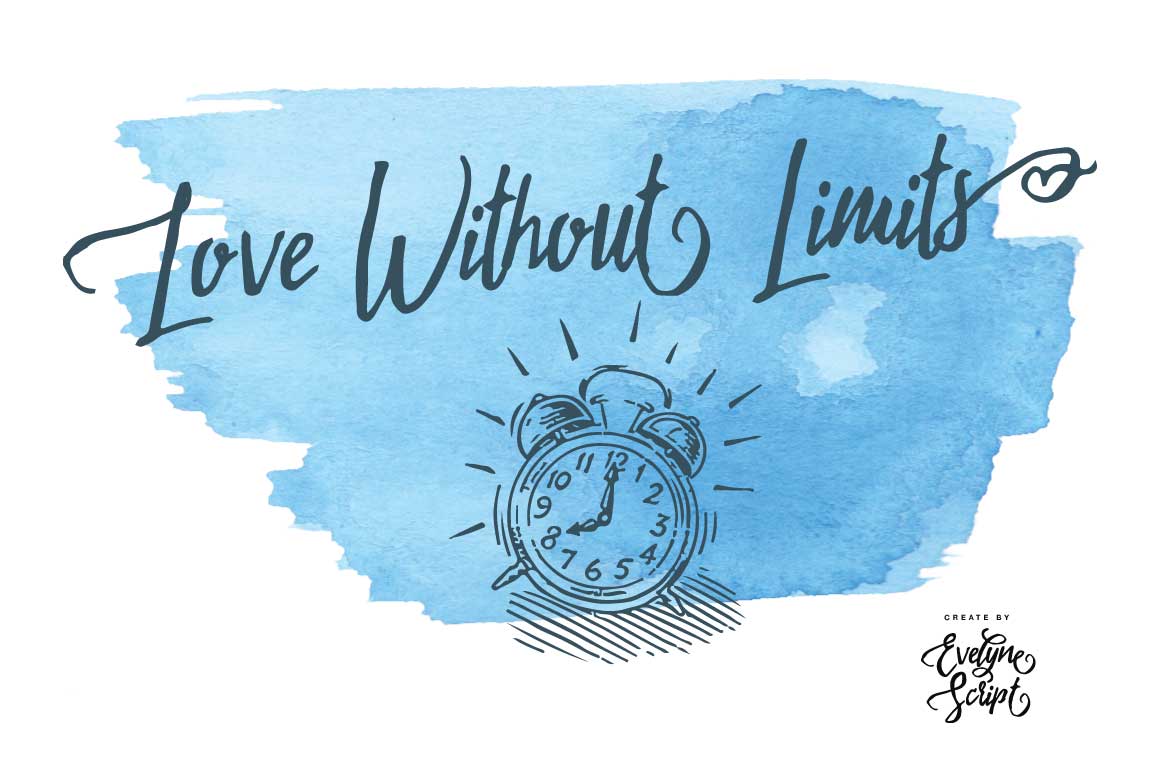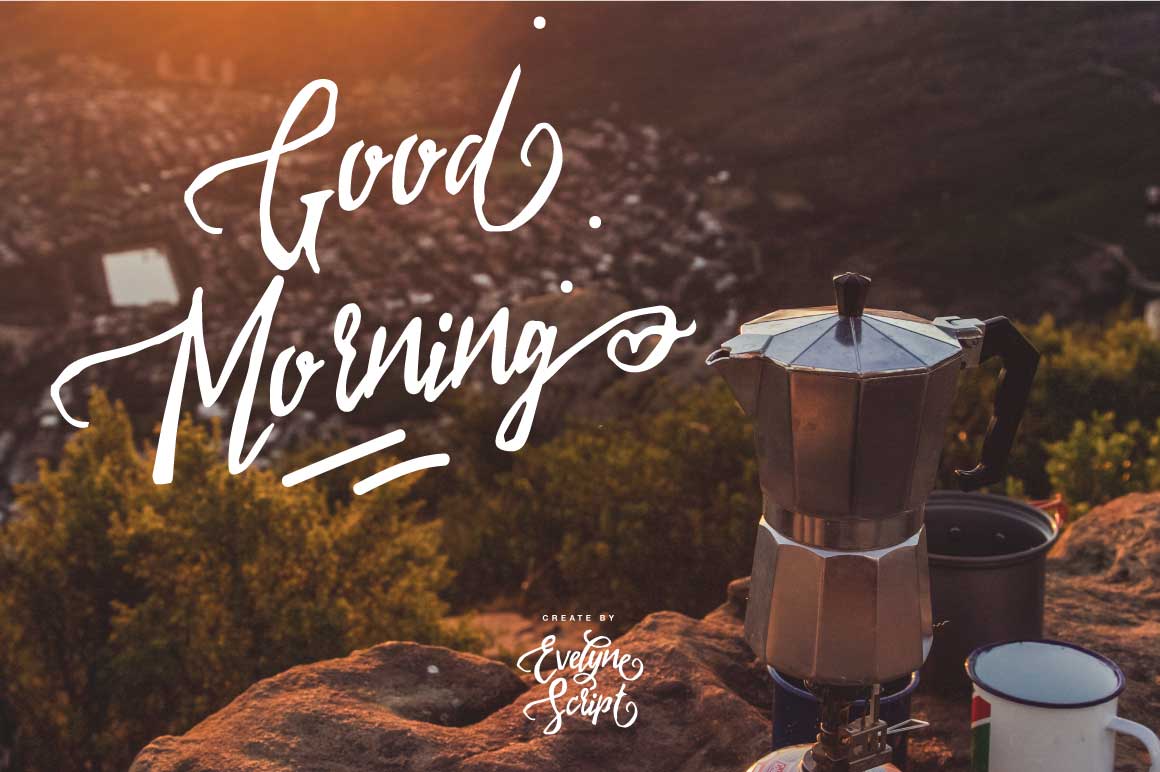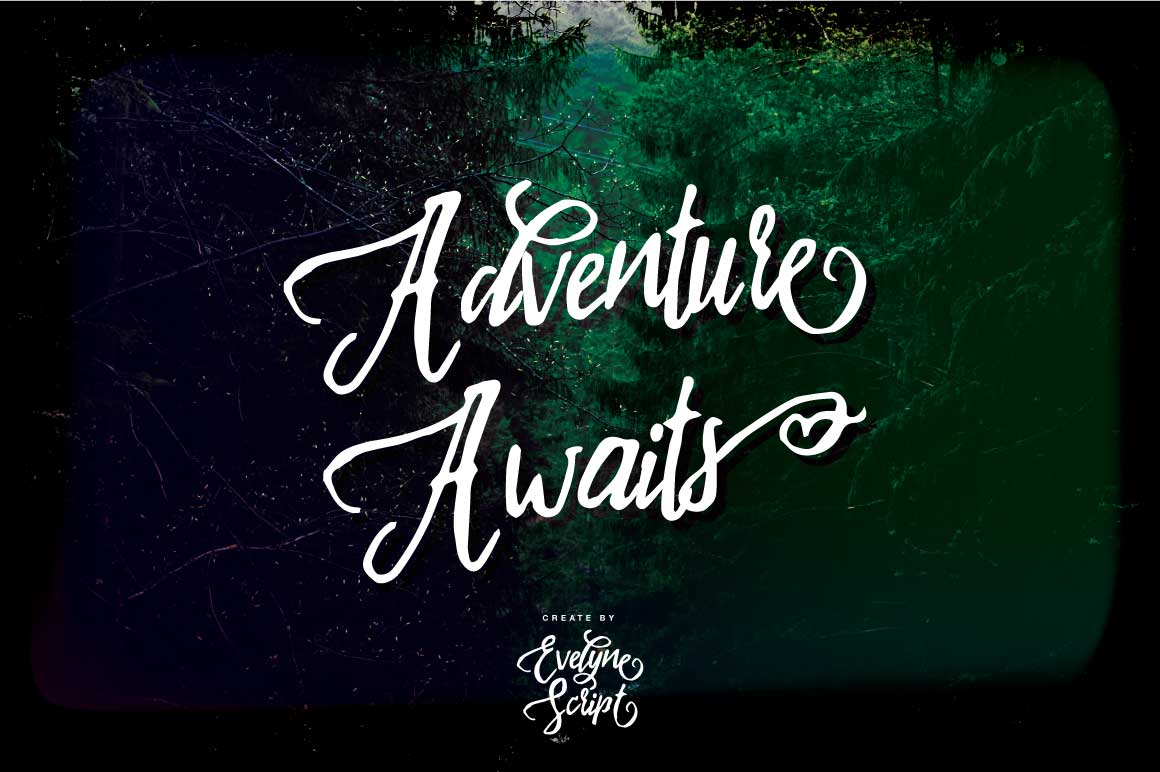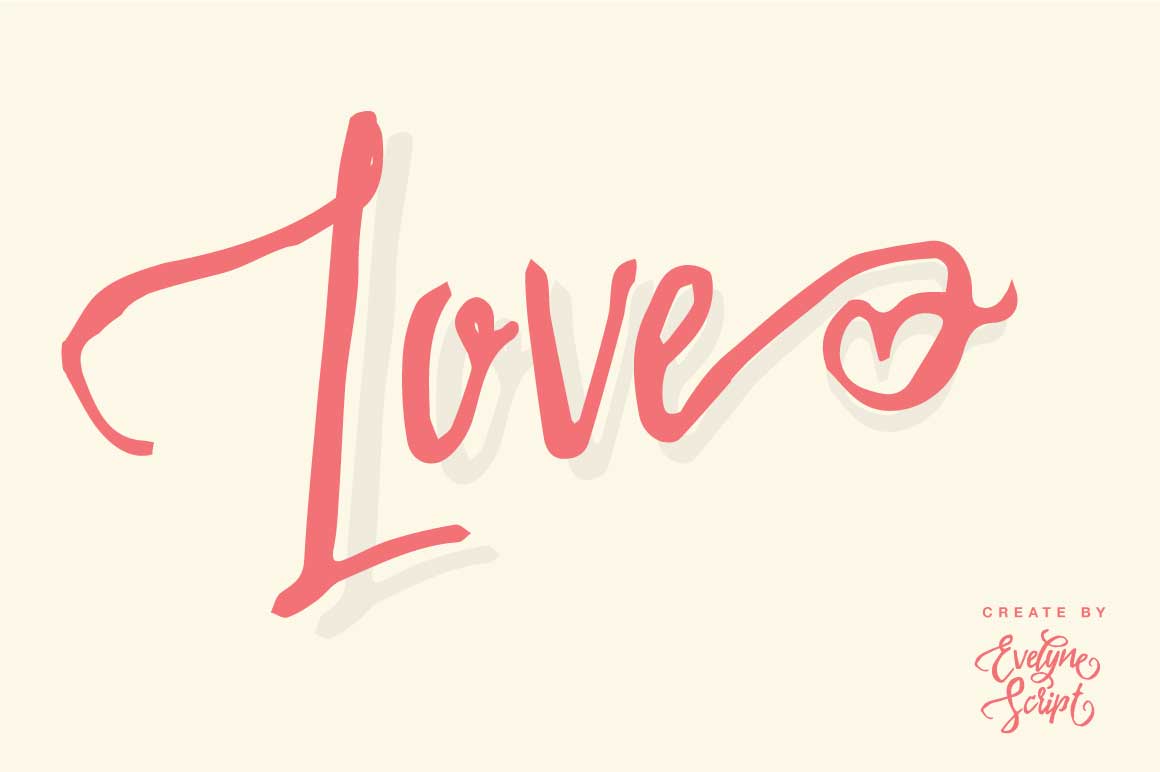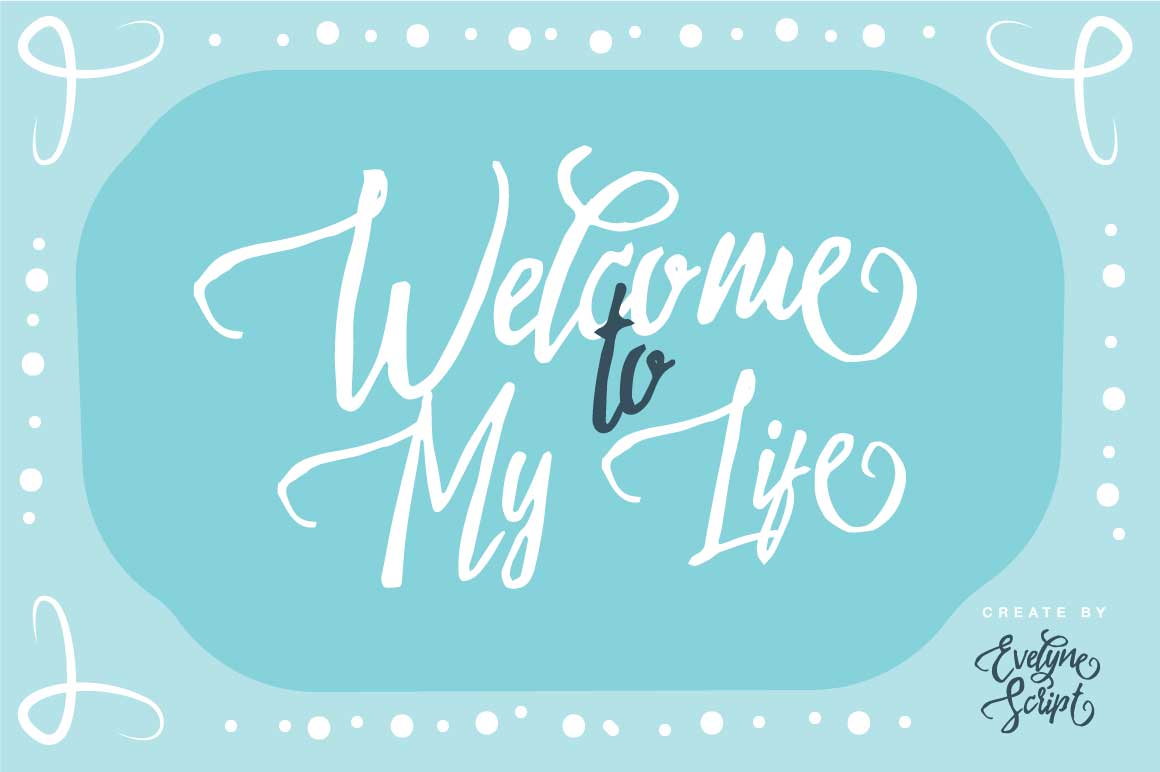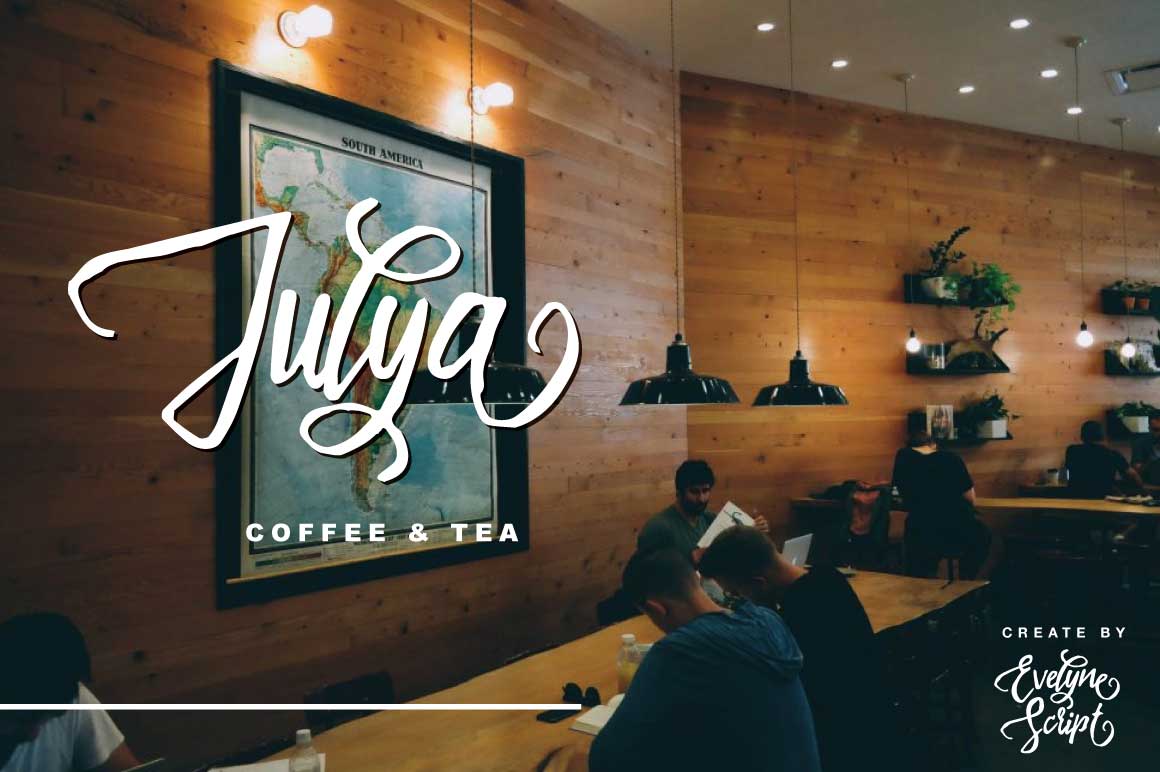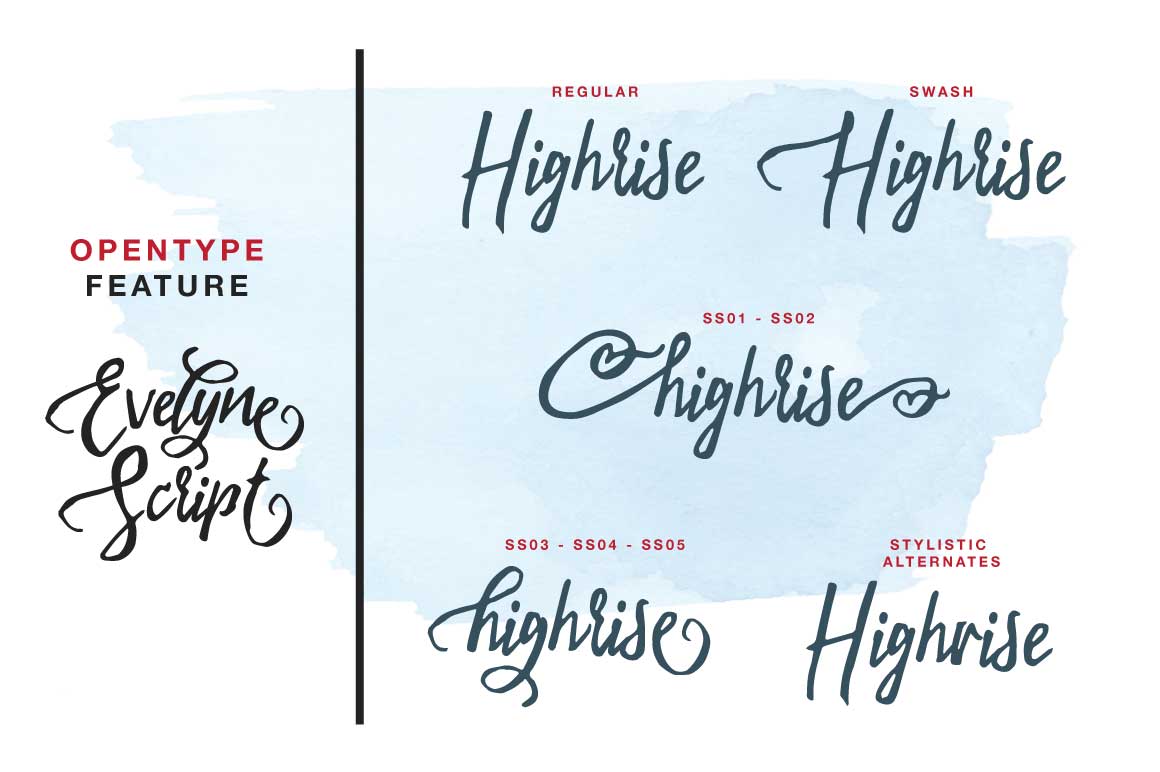
Evelyne Font
Evelyne is a gorgeous and well-weighted handwritten font. This script typeface includes stylistic alternates and looks great across a wide range of designs and styles.